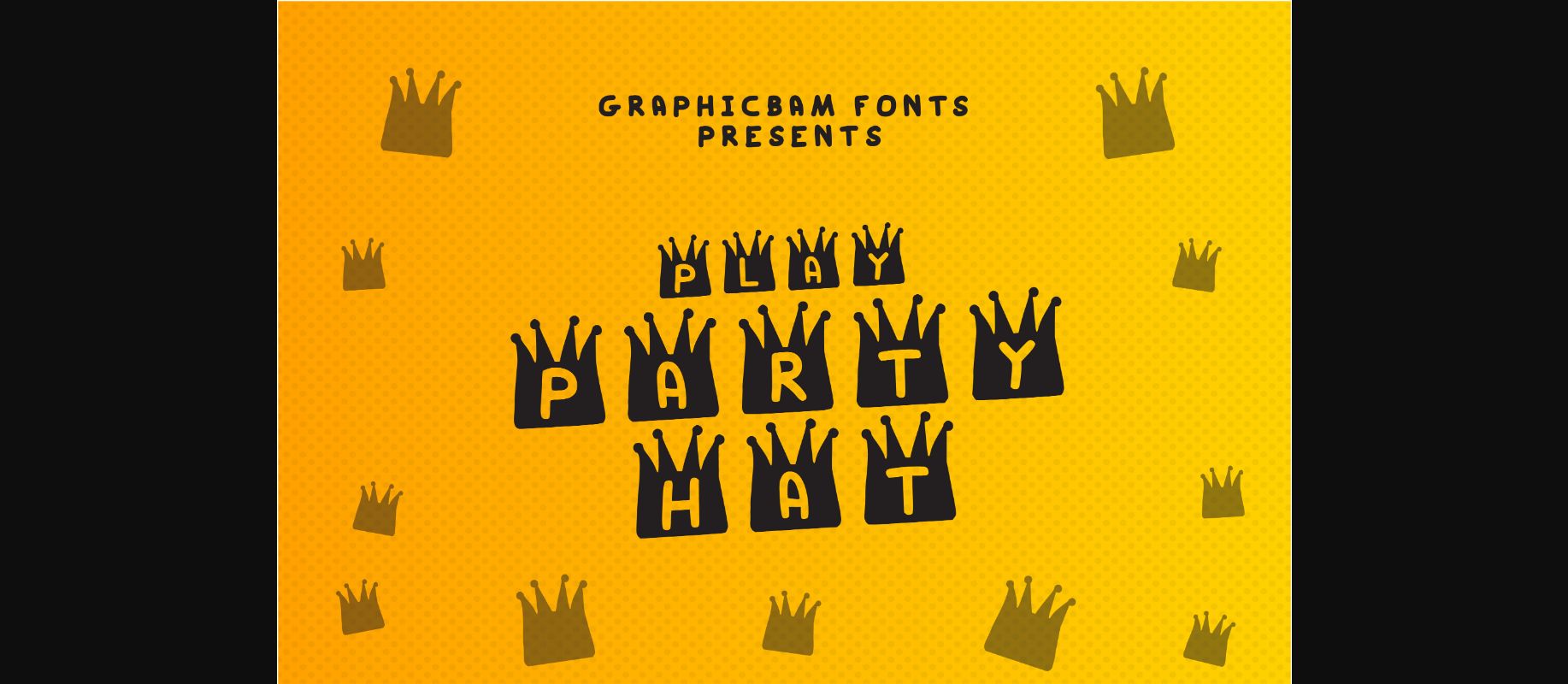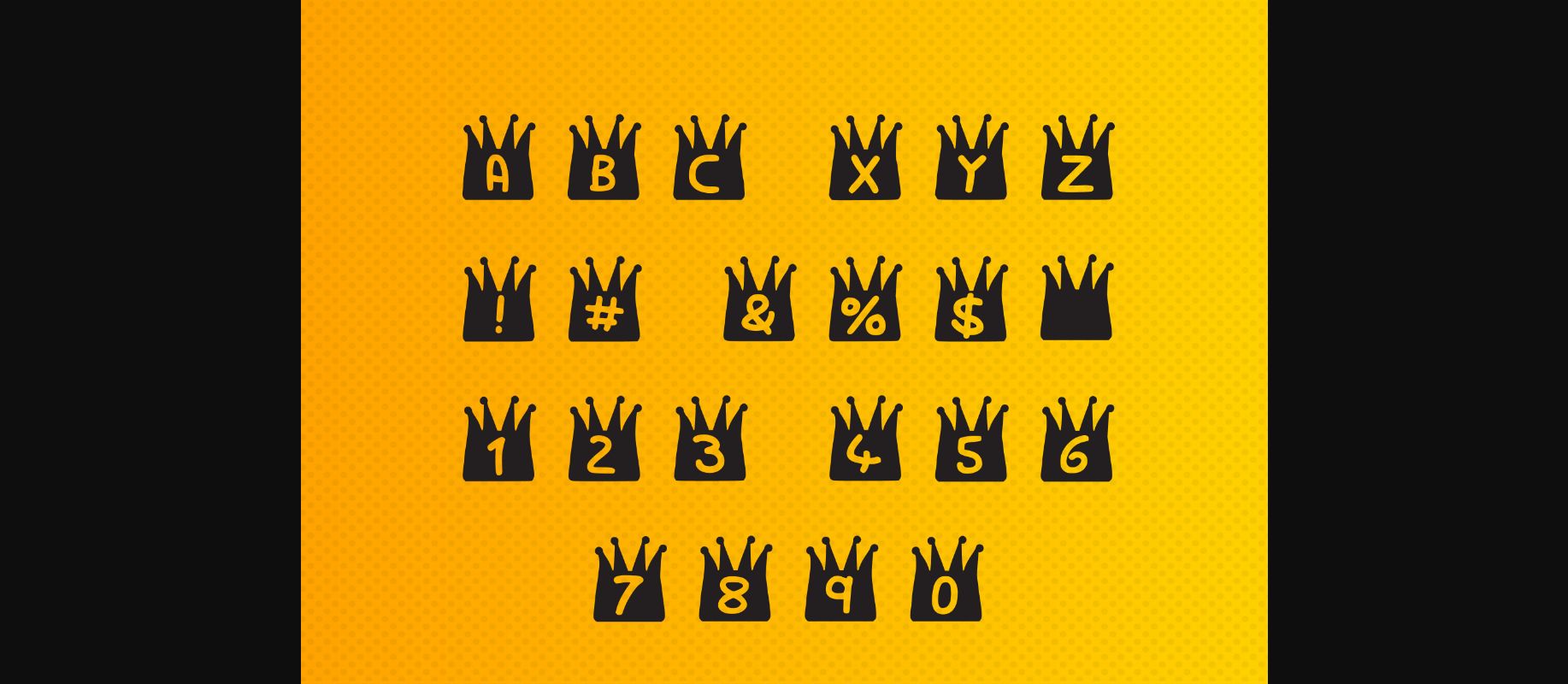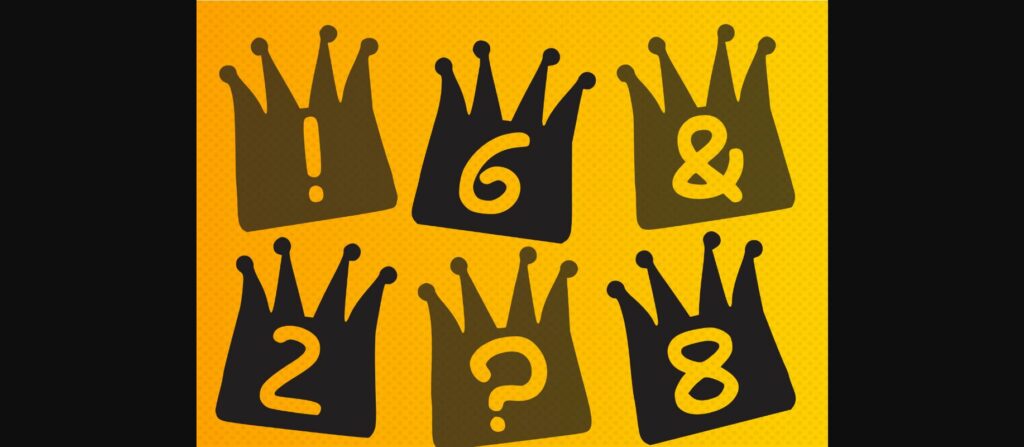
About Play Party Hat Font
Create outstanding celebratory designs with Play Party Hat – a decorative font meant to impress! It looks playful and charming, just great for birthday banners, birthday cards, or other fancy designs.